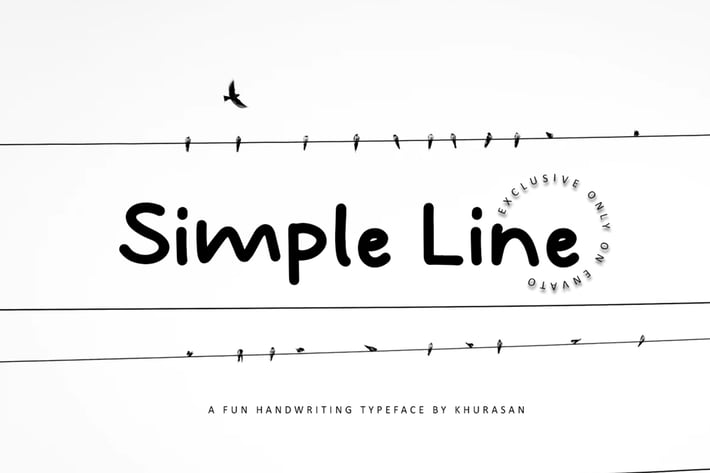
Simple Line Font
The Simple Line is a fun Handwriten font, fresh & modern style. Simple Line Font suitable for logo, branding, greeting card, poster and any design that you create.